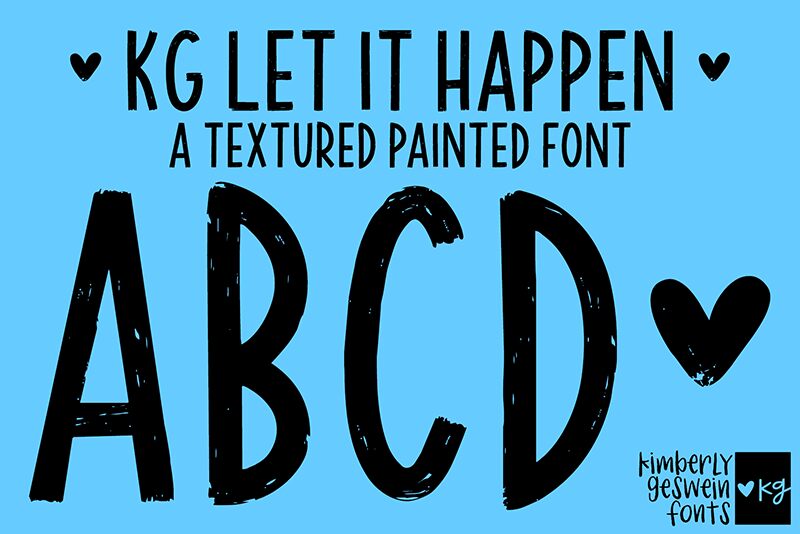
KG Let It Happen Normal
KG Let It Happen font is a handwritten typeface, designed by Kimberly Geswein. The natural font sports a condensed width which is why it can balance beautifully in the space you give to your texts. Make your texts happen with this casual free handwritten font as it naturally catches attention with its faded appearance on fake ink-bleeding edges.
Genuine and personal fonts are often hard to find making KG Let It Happen special that you get for free. Use it on letterheads, invitation cards, mood boards and journaling ideas, planners, movie posters, flyers and brochures. Typographic logos are also a great idea to use this rich typeface where you can choose both uppercase and lowercase letters separately or together for better results!